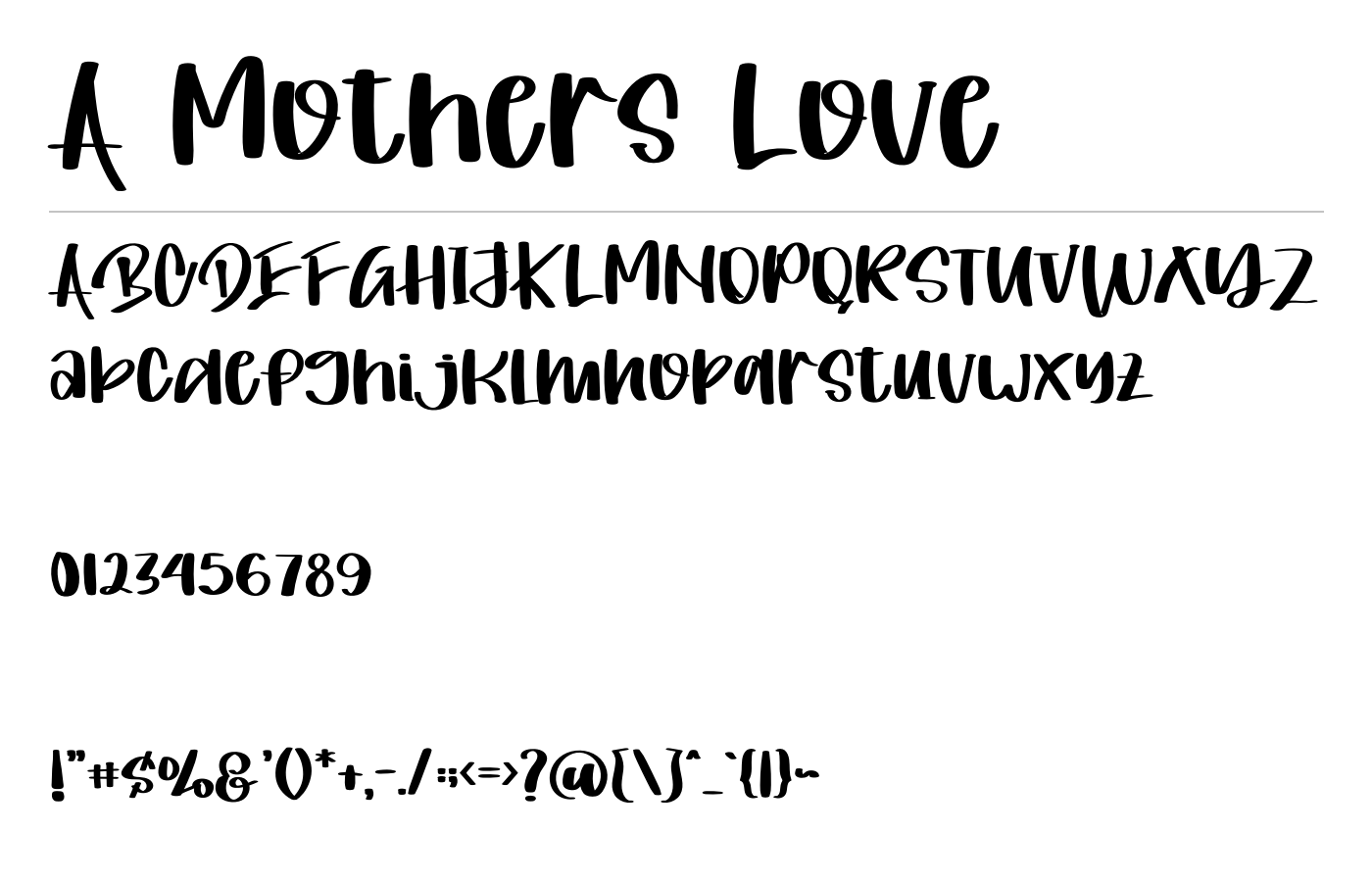
A Mothers Love is a lively and playful script font with a warm, handwritten feel. Its bold weight, flowing curves, and slightly irregular strokes create a friendly and approachable style, perfect for casual and heartfelt designs. This font works well for greeting cards, invitations, branding, and any project seeking a personal, charming touch.
A Mothers Love Font
About A Mothers Love Font